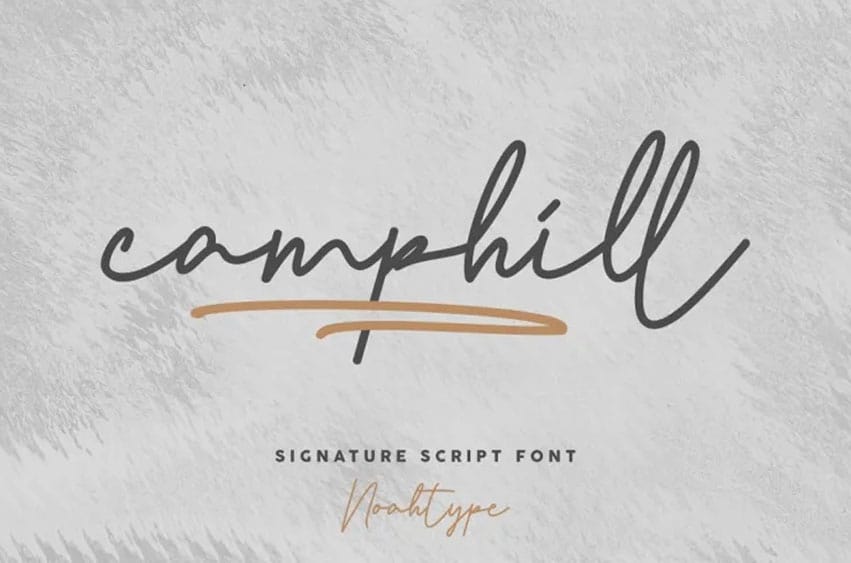
Camphill Font is an original handwriting font featuring contemporary and stylish characters, created with care to appear like natural handwritten script. We aimed for this font to leave an authentic impression when used; for example if you would like an “s” which includes the letter t, use the “st” ligature character (just enter text box below first time). This wonderful script makes an ideal addition to designs requiring style and elegance.
Camphill Font has the complete collection of Uppercase as well as Lowercase Basic characters, numerals and punctuation for any project you need to complete. In addition, this font contains ligatures and alternative characters to create natural handwriting styles which add beauty to any unique project you work on.